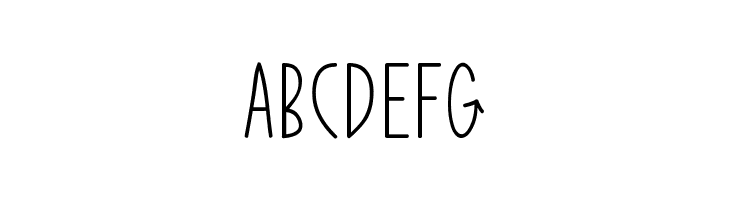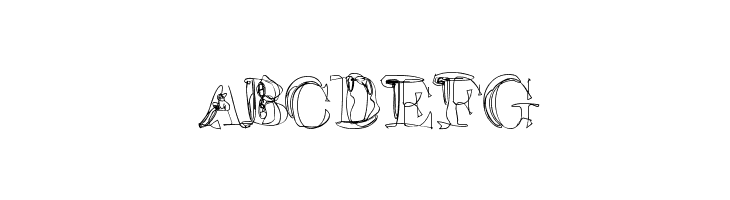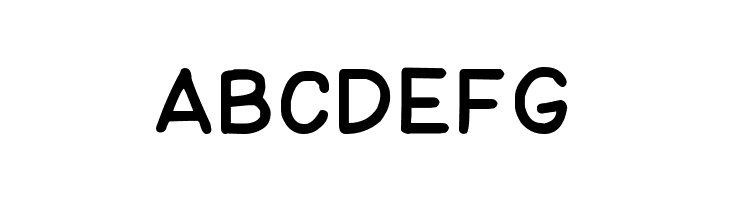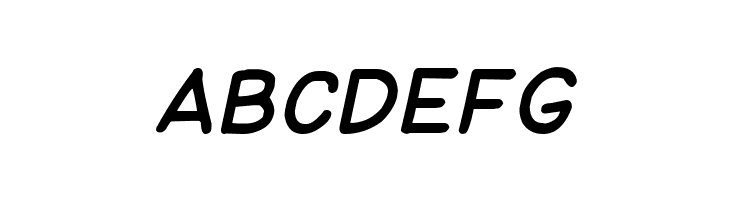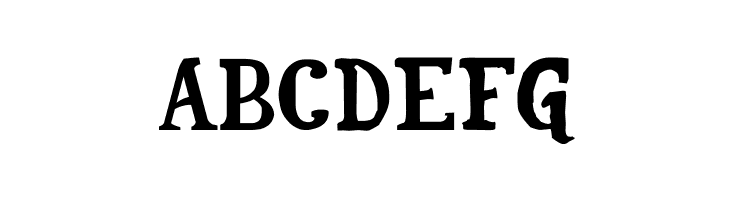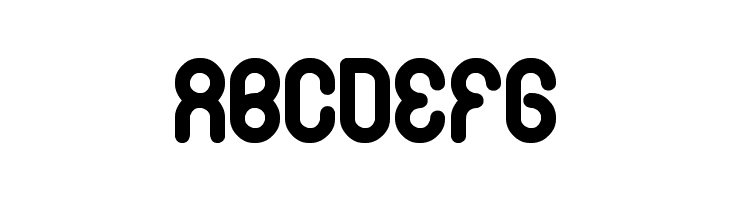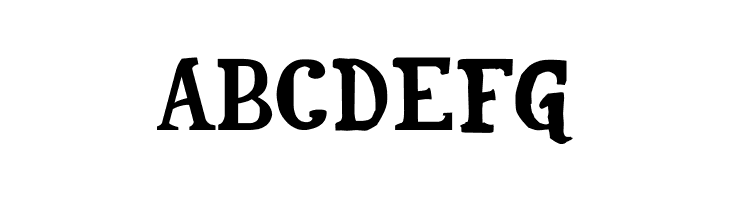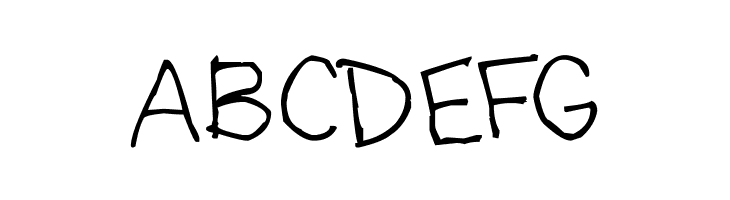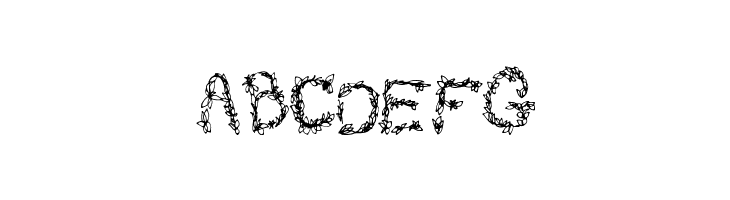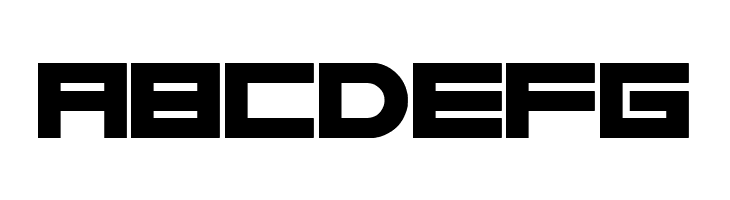
A rugged, distressed font with a hand-drawn, textured appearance.
A bold, expressive font with a dynamic, handwritten style.
A whimsical, decorative font inspired by vintage fairground signage.
A playful and eclectic font with unique, whimsical characters.
A whimsical, decorative font with a fairy-tale-like appearance.
A whimsical, fairy-tale inspired font with decorative swirls and curls.
A bold, playful font with a hand-drawn, quirky style.
A bold, hand-drawn font with dynamic, textured strokes.
A playful, handwritten font with bold, rounded strokes and a casual style.
A playful, hand-drawn font with tall, narrow letters and consistent stroke width.
A decorative font with intricate leaf and vine patterns for a whimsical, nature-inspired look.
A bold, textured font with a rustic, hand-drawn appearance.
A flowing, elegant cursive font with modern and classic elements.
An elegant, flowing cursive font with modern and classic elements.
A dynamic, hand-drawn script font with textured, flowing letters.
A playful, hand-drawn font with a 3D sketch effect.
An artistic, hand-drawn font with intricate, sketch-like details.
A bold, hand-painted style font with dynamic, textured strokes.
A bold, brush-style font with an expressive and handcrafted appearance.
A bold, modern serif font with distinctive curves and strong presence.
A bold, grunge-style font with a rugged and distressed appearance.
A playful, rounded font with bold, smooth curves and a friendly appearance.
A playful, rounded font with smooth curves and consistent stroke width.
A pixelated, grid-based font with a retro digital aesthetic.
Bold, high-contrast serif font with classic luxury appeal.
A font featuring car silhouettes for letters, paired with classic serif numbers and symbols.
A bold, playful font with a 3D shadow effect and hand-drawn texture.
A bold, retro-inspired font with a playful and hand-crafted appearance.
A playful, hand-drawn font with a bold, whimsical style.
A bold, playful font with a three-dimensional shadow effect and a hand-drawn style.